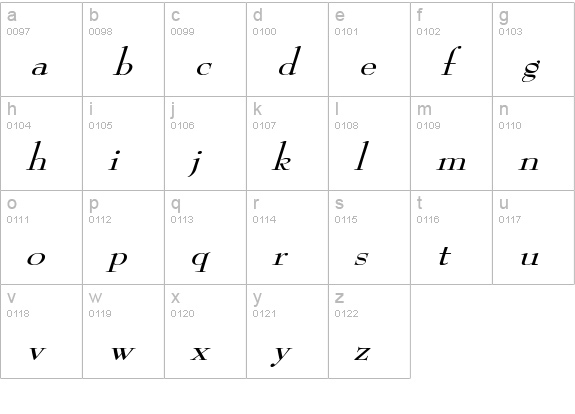
ReedFont Wd Italic Font Details
ReedFont Wd Italic is a distinctive, italic variant in the ReedFont typeface family \xE2\x80\x94 well suited to design and typography projects.
ReedFont Wd Italic is a sleek and modern font that exudes elegance and sophistication. Its unique and stylish design sets it apart from other fonts, making it the perfect choice for projects that require a touch of professionalism and creativity. The italicized style adds a sense of movement and dynamism to any text, making it visually captivating and engaging. What sets ReedFont Wd Italic apart is not only its exceptional design, but also the fact that it is available free of charge. Yes, you read that right – this incredible font can be downloaded for free at FontsMarket.com. This means that you can enhance your projects and add a touch of class without spending a dime. Whether you are designing a logo, creating a website, or working on a print project, ReedFont Wd Italic is a versatile and reliable choice. Its clean lines and balanced proportions make it highly readable even at smaller sizes, ensuring that your message is conveyed effectively to your audience. So why wait? Download ReedFont Wd Italic today from FontsMarket.com and elevate your designs to a whole new level. With its free availability and exceptional design, this font is a must-have for any designer or creative professional. Don't miss out on the opportunity to enhance your projects and make a lasting impression with ReedFont Wd Italic.